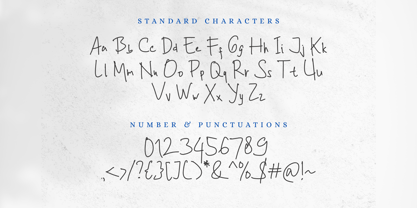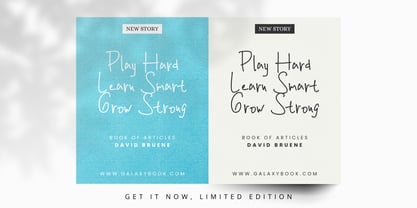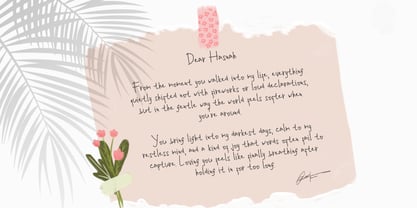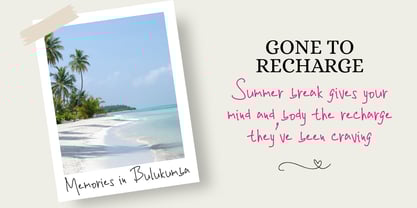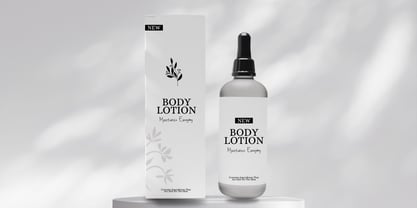
Boring Marker
by Violatype
The Boring Marker Font Family was designed by Hasna Viola and published by Violatype. Boring Marker contains 1 styles. More about this family
BORING MARKER is a bold and expressive handmade marker font that brings attitude and authenticity to your designs. With rough edges and casual strokes, this font captures the raw energy of real hand-drawn lettering — perfect for posters, social media graphics, streetwear branding, or anything that needs a punch of personality.
Despite its name, there's nothing boring about BORING MARKER. It’s loud, fun, and eye-catching. The font includes a few custom ligatures to keep your lettering looking dynamic and natural.
Best Suited For: Street-style branding, Music & event posters, Bold social media quotes, T-shirt designs & merchandise, Editorial titles & headlines
Designers: Hasna Viola
Foundry: Violatype